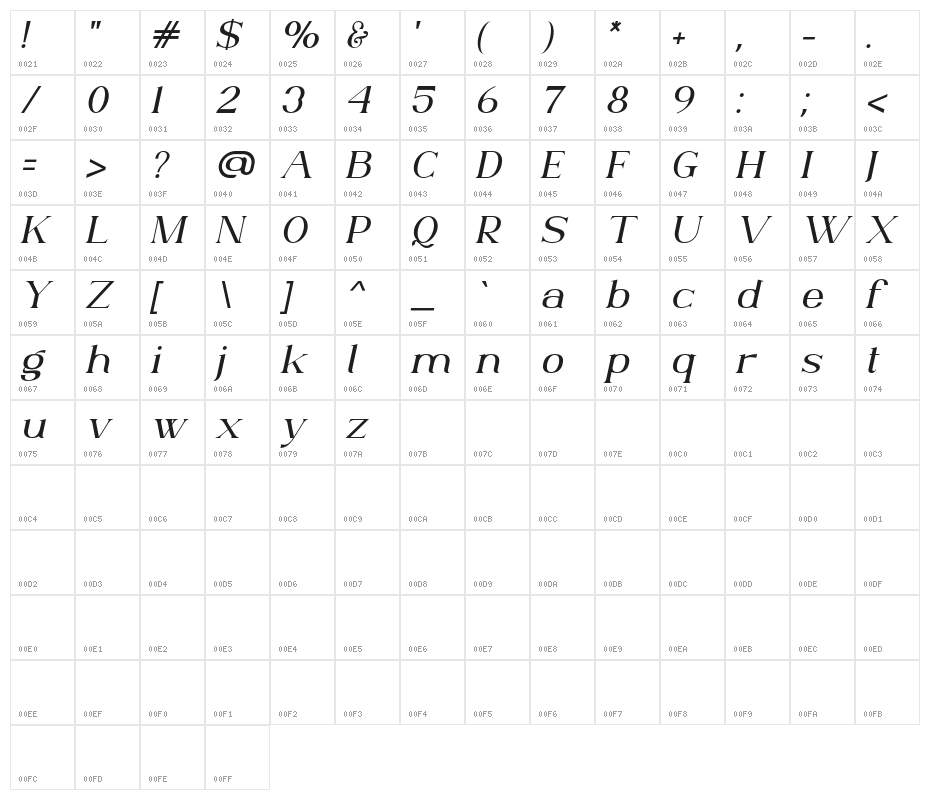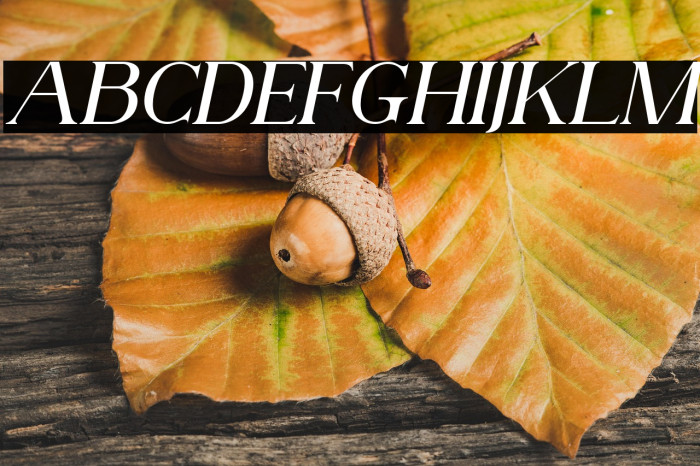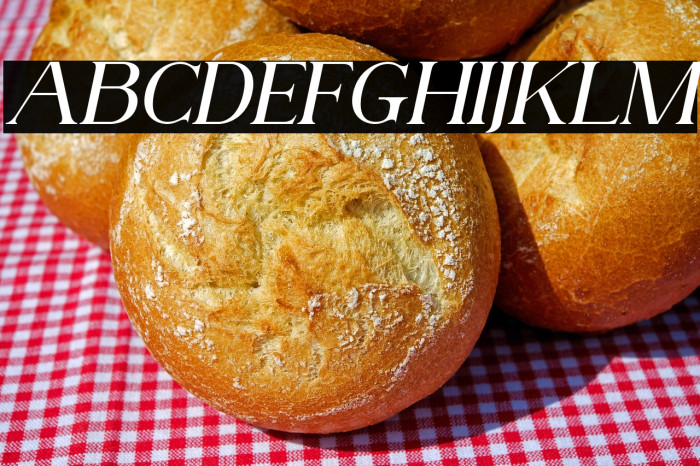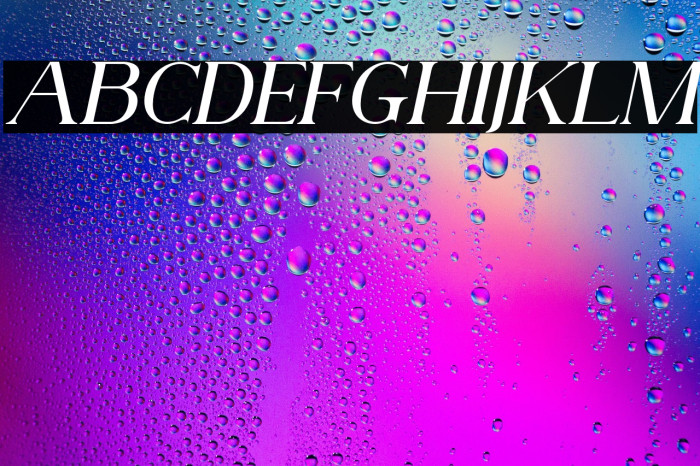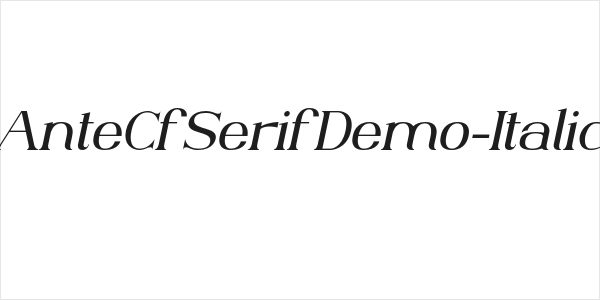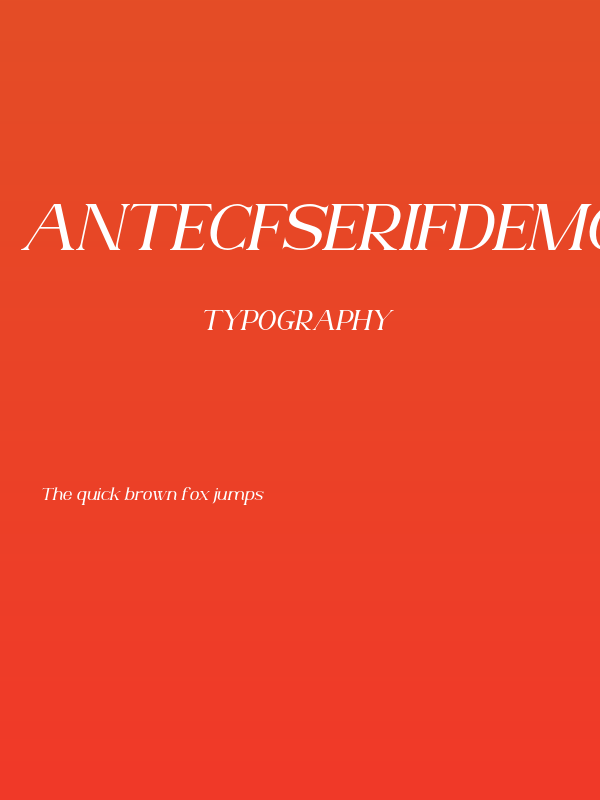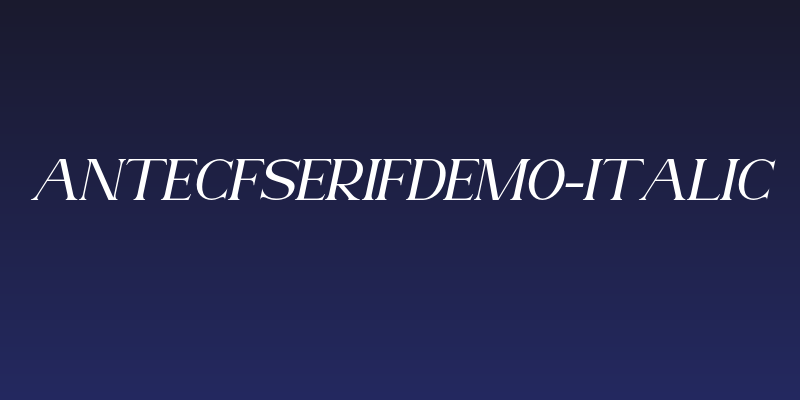
AnteCfSerifDemo-Italic Font
AnteCfSerifDemo-Italic Description
This elegant serif typeface features a sophisticated italic style, characterized by its graceful curves and refined serifs. The letters exhibit a classic yet modern aesthetic, with a slight slant that adds a sense of motion and fluidity. The uppercase letters are tall and commanding, while the lowercase letters maintain a harmonious balance with their slightly rounded forms. The numerals are distinct and easy to read, complementing the overall design. Special characters are thoughtfully crafted, ensuring consistency across the typeface. This font is ideal for projects that require a touch of elegance and sophistication.
| Proposed Projects | Ideal for luxury branding, editorial design, wedding invitations, and high-end packaging. |